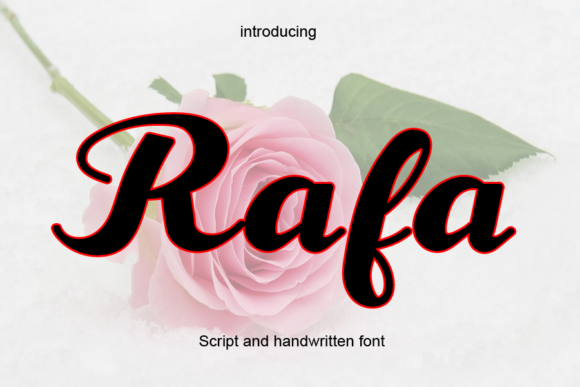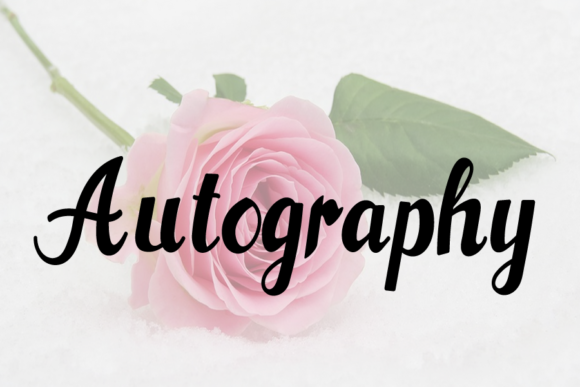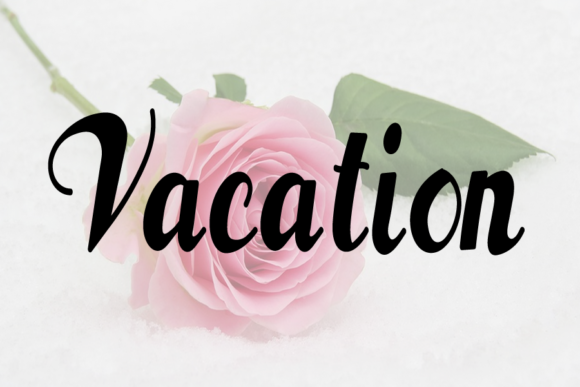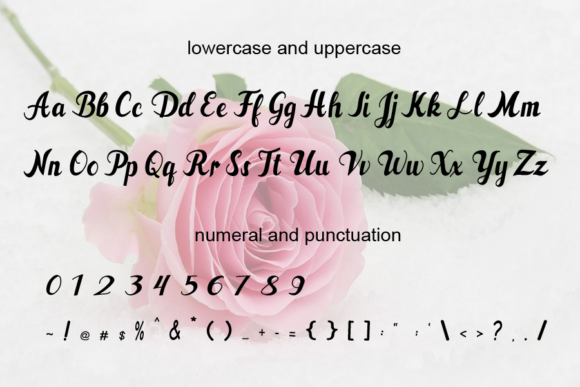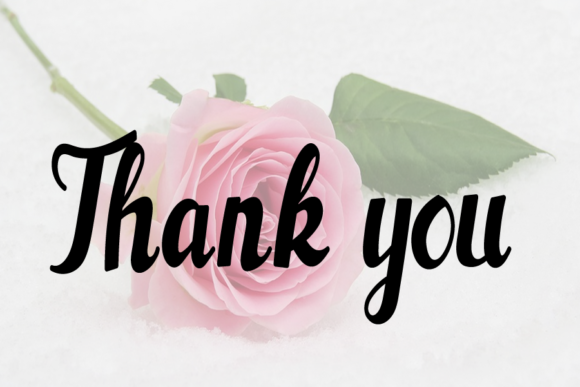
About Rafa Font
Rafa is a gorgeous handwritten script font with a classic calligraphy style. The smooth characters work great on greeting cards, wedding invites, birthday cards, and much more. Add this lovely font to your creations and take your designs to the next level!